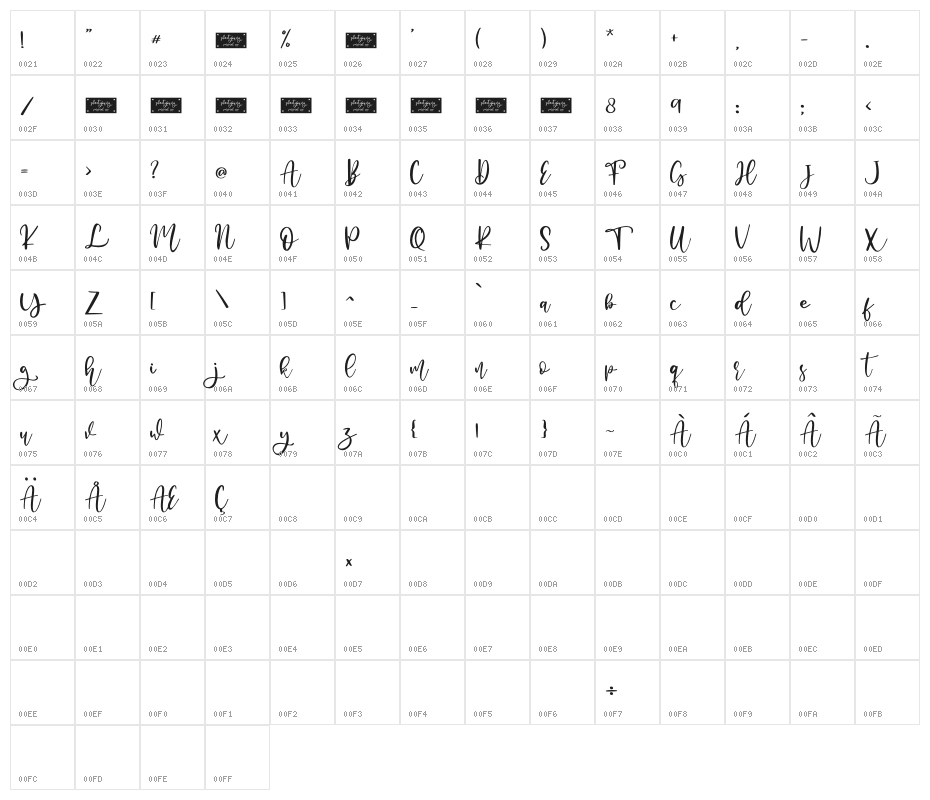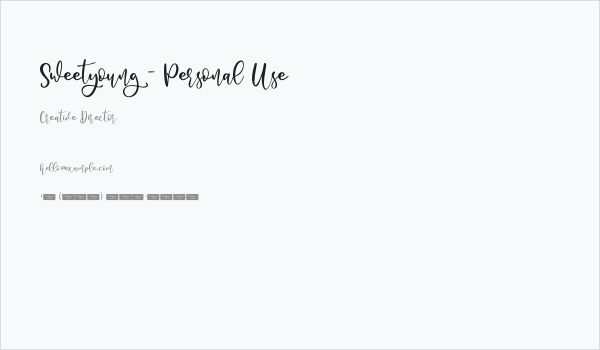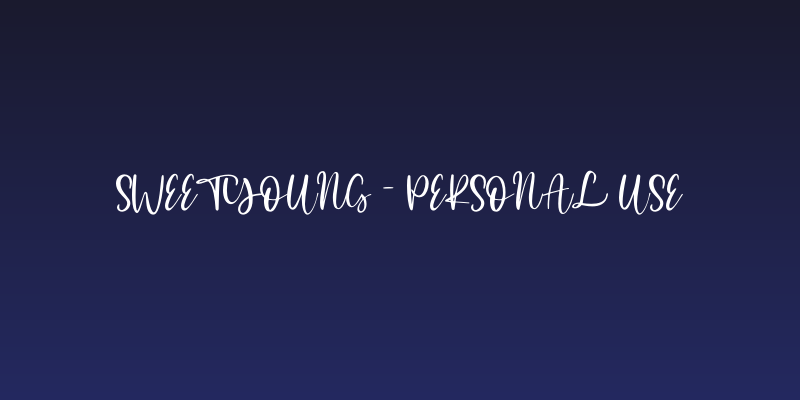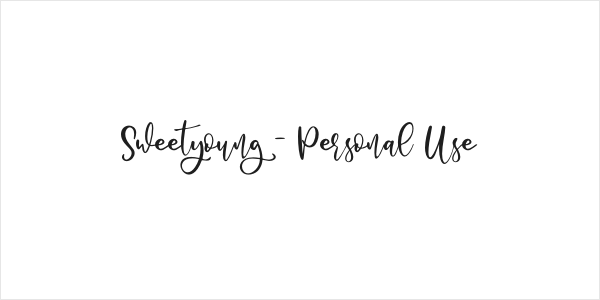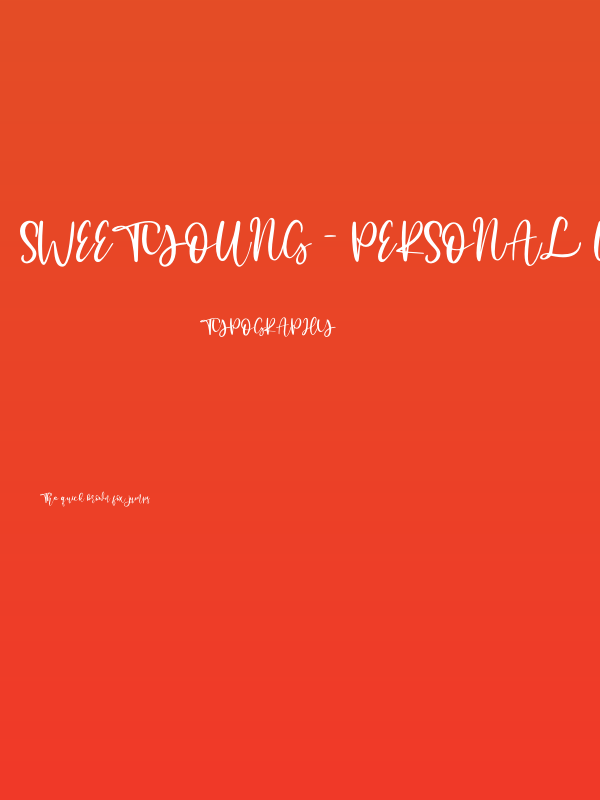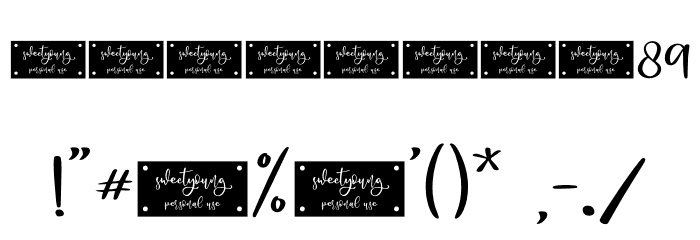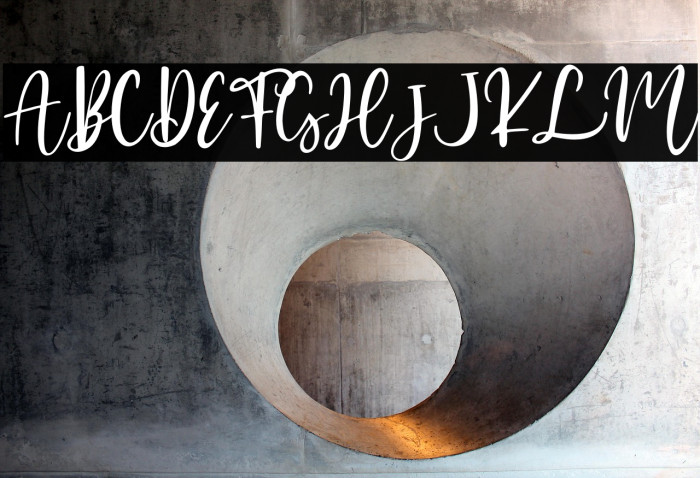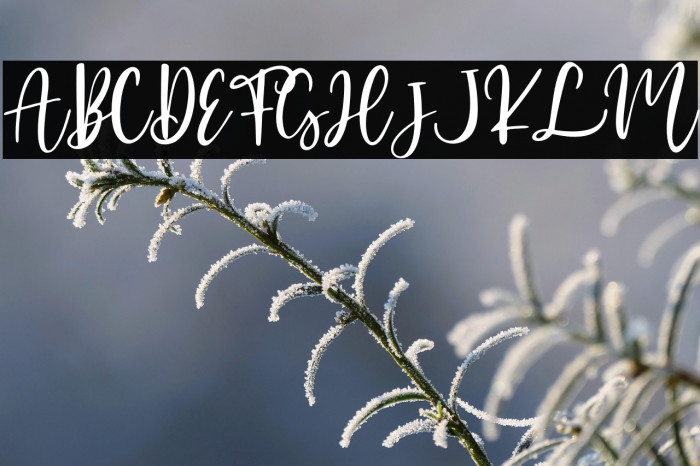
Sweetyoung - Personal Use Font
Sweetyoung - Personal Use Description
This font features a playful and elegant script style with a handwritten appearance. The uppercase letters are bold and flowing, with a distinctive flair that adds a touch of sophistication. The lowercase letters maintain a consistent style, with loops and curves that enhance its whimsical nature. The numbers and special characters are designed to match the overall aesthetic, providing a cohesive look. This font is ideal for projects that require a personal and artistic touch, such as invitations, greeting cards, and branding materials.
| Proposed Projects | Ideal for invitations, greeting cards, branding, and artistic projects. |